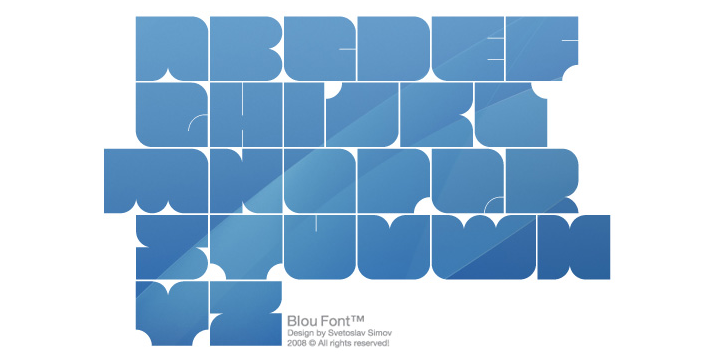
Searching for a fresh, contemporary typeface that adds personality and style? Blou Font Free Download is the perfect choice. Its sleek, geometric design makes it ideal for branding, web design, headlines, and creative projects that need a bold yet approachable look.
Whether you’re crafting logos, posters, or digital content, Blou Font Free Download adapts seamlessly to your creative vision. Its versatility and trendy style make it a favorite among designers who want their work to stand out.